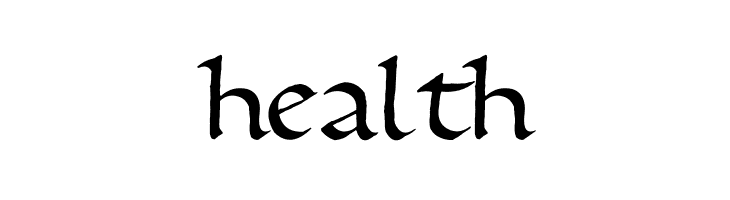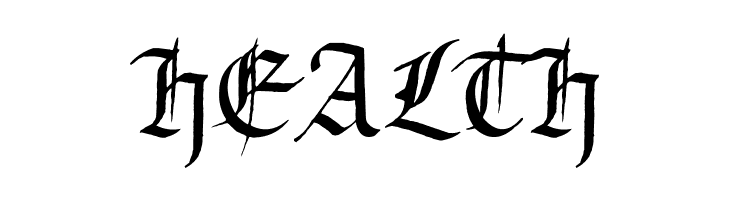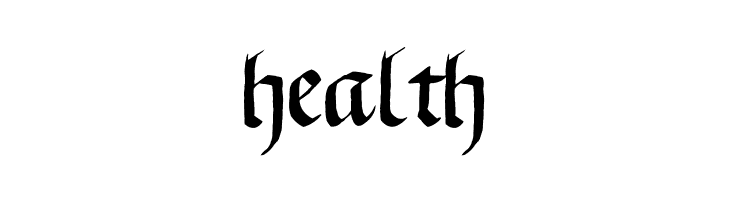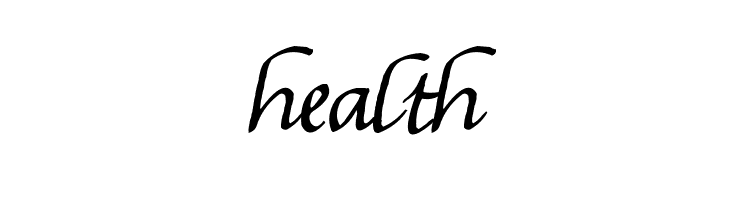
Waters Gothic Font
A bold, gothic-style font with sharp, angular strokes and elaborate flourishes.
Gourdie Handwriting Font
A graceful script font with a fluid, handwritten style.
Gourdie Cursive Font
A classic cursive font with elegant, flowing strokes and refined curves.
Gourdie Cursive Deux Font
A graceful cursive font with elegant, flowing lines and calligraphic details.
Bouwsma Uncial Font
A bold, high-contrast font with medieval script influences and ornate details.
Animal Caps Font
A decorative font featuring intricate animal motifs within each letter.
Reynolds Chancery Deux Font
A classic, elegant calligraphic font with graceful curves and fluid motion.
Quadrata Font
A bold, medieval-style font with sharp serifs and high contrast.
Reynolds Chancery Font
A classic, elegant script font with sweeping curves and ornate details.
Gourdie Uncial Font
A medieval-style font with rounded forms and moderate contrast, ideal for historical themes.
Waterhole Font
A playful, bubble-like decorative font with bold, textured characters.
Foundational Font
A classic, calligraphic font with medium contrast and elegant, flowing strokes.
Korger Gothic Font
A bold, Gothic-style font with intricate, angular characters and a medieval flair.
Rustic Capitals Font
A bold, angular font with a historical Roman inscription style.
Ken's Calligraphic Font
A classic calligraphic font with elegant, flowing strokes and traditional style.
Korger Gothic Deux Font
A bold, traditional blackletter font with high contrast and intricate details.
Gourdie Uncial Deux Font
A medieval-inspired font with rounded, flowing letterforms and a calligraphic style.
Waters Gothic Deux Font
A bold, gothic blackletter font with intricate, angular strokes and ornate flourishes.
Versal Filled Font
A classic, calligraphic font with ornate serifs and elegant curves.
Murray Uncial Font